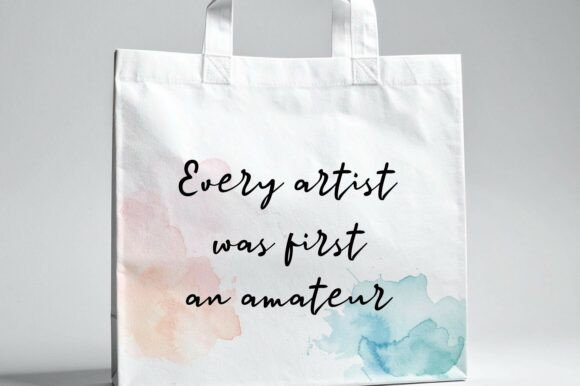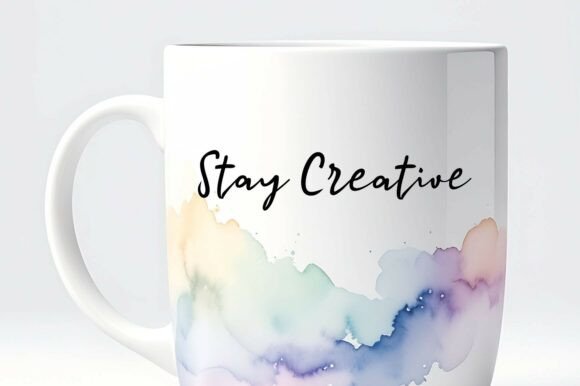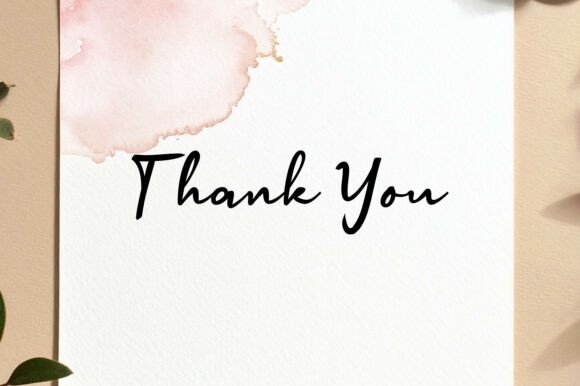
Amenity Kits Font: Elevate Your Designs with Elegance and Sophistication
In the world of typography, few fonts manage to convey the essence of luxury and refinement as effortlessly as “Amenity Kits.” This beautiful script typeface is a masterclass in elegant design, featuring slender, flowing strokes that exude a sense of understated sophistication. Whether you’re a designer looking to elevate your branding, packaging, or editorial projects, or a crafter seeking to add a touch of luxury to your creations, “Amenity Kits” is an exceptional choice.
The Characteristics of Amenity Kits Font
So, what makes “Amenity Kits” stand out from the crowd? Let’s take a closer look at its distinctive features:
- Delicate & Airy: The font’s thin lines and open letterforms give it a light, ethereal presence that’s perfect for creating a high-end feel. This airy quality makes it an excellent choice for designs that require a sense of elegance and refinement.
- Elegant Script: “Amenity Kits” embodies the classic characteristics of a script font, with a modern twist that ensures readability and stylistic flair. Its gentle connections and flowing strokes evoke the feeling of elegant handwriting with a fine-tip pen or brush.
- Artistic & Refined: This font has an inherent artistic quality that suggests care, precision, and beauty in its design. It’s often paired with soft, artistic backgrounds like watercolors, making it perfect for creative projects that require a touch of sophistication.
- Understated Sophistication: Unlike some script fonts that can be overly ornate, “Amenity Kits” achieves elegance without being too flashy. This makes it versatile for both formal and tastefully casual applications, from luxury branding to wedding stationery.
What is Amenity Kits Font Good For?
“Amenity Kits” is an incredibly versatile font that’s suitable for a wide range of projects, including:
- Luxury Branding: Create a lasting impression with a font that exudes high-end quality and sophistication.
- Packaging Design: Elevate your product packaging with a font that’s both elegant and refined.
- Editorial Projects: Add a touch of luxury to your editorial designs, such as magazines, newspapers, and books.
- Wedding Stationery: Make your wedding invitations, programs, and other stationery truly special with a font that’s both elegant and romantic.
- Artistic Creations: Pair “Amenity Kits” with artistic backgrounds and illustrations to create stunning works of art.
Tips for Using Amenity Kits Font
To get the most out of “Amenity Kits,” here are some tips to keep in mind:
- Pair with contrasting fonts: Combine “Amenity Kits” with a clean, sans-serif font to create visual interest and hierarchy.
- Experiment with colors: Try pairing the font with soft, pastel colors or rich, jewel-toned hues to create a unique look.
- Pay attention to spacing: Make sure to leave enough space between lines and words to maintain the font’s airy, elegant feel.
- Use it sparingly: While “Amenity Kits” is a beautiful font, it’s best used sparingly to avoid overwhelming the design.
“Amenity Kits” is a truly exceptional font that’s sure to elevate your designs and add a touch of luxury to your creations. With its delicate, airy quality and elegant script characteristics, it’s the perfect choice for designers and crafters looking to create high-end designs. Whether you’re working on a luxury branding project, packaging design, or artistic creation, “Amenity Kits” is an excellent choice. So why not give it a try and see the difference it can make?